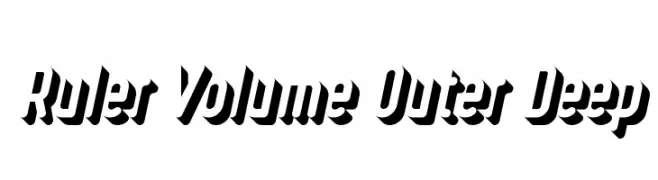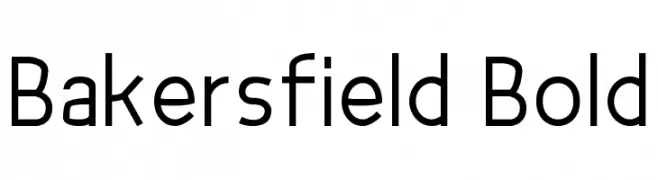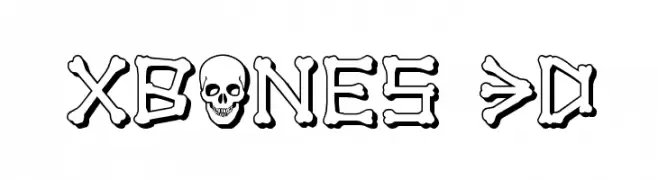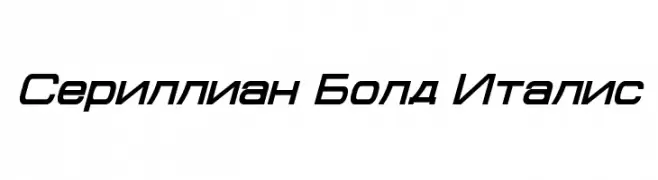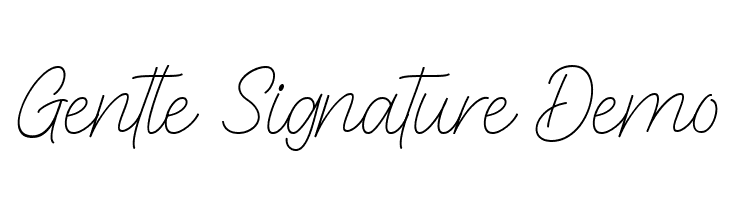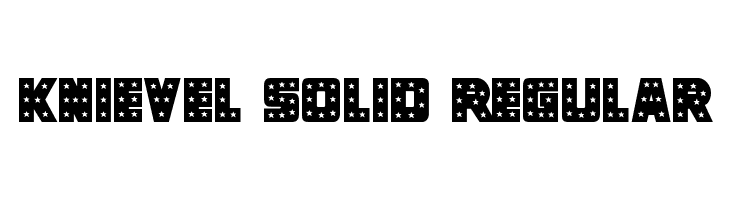
A bold, geometric font with a modern, futuristic style and condensed width.
A bold, 3D-effect font with slanted, dynamic characters.
A playful, hand-drawn font with bold outlines and a whimsical style.
A bold, modern sans-serif font with geometric influences and excellent readability.
A bold iconographic font with archaeology-themed symbols.
A bold, bone-themed font with a 3D effect, ideal for spooky designs.
A whimsical script font with tall, narrow uppercase and flowing cursive lowercase letters.
A classic serif font with elegant strokes and sharp serifs.